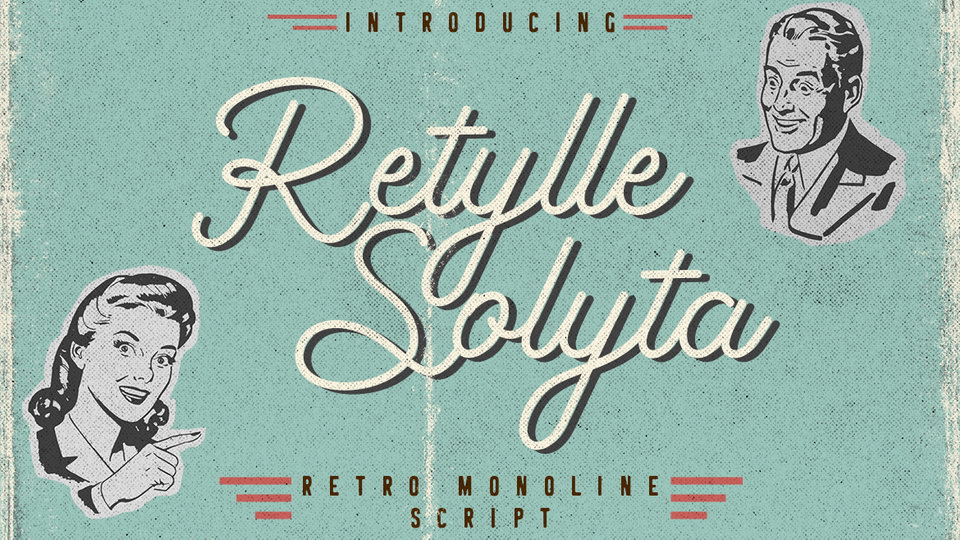
Retylle Solyta Font › Fontesk – Download Grátis
Download Retylle Solyta, a beautiful monoline retro script font, which would work for a wide variety of purposes, such as logo, wedding designs, social media posts, advertisements, product packaging, invitation, stationery and any projects that need handwriting taste.